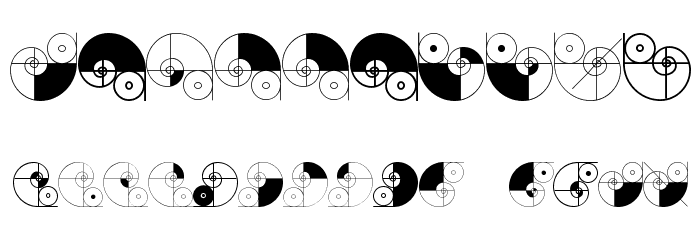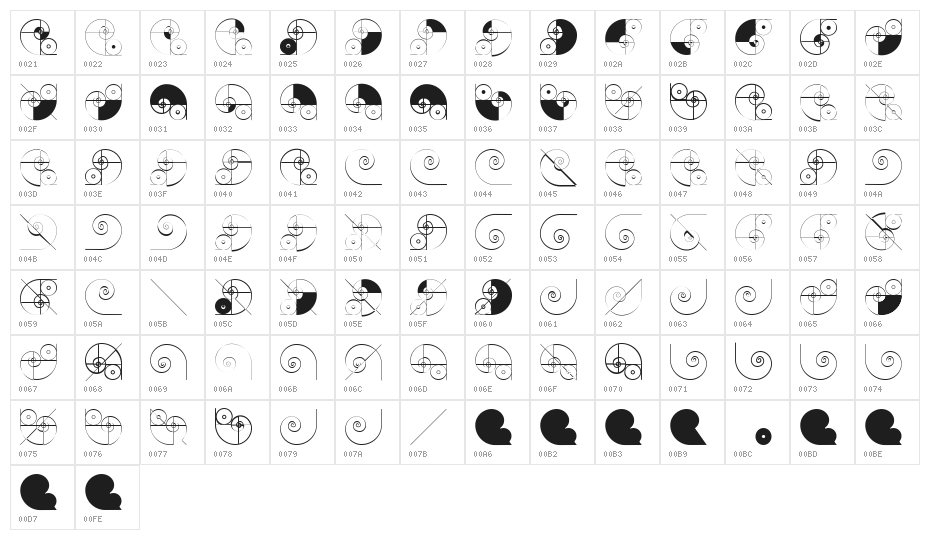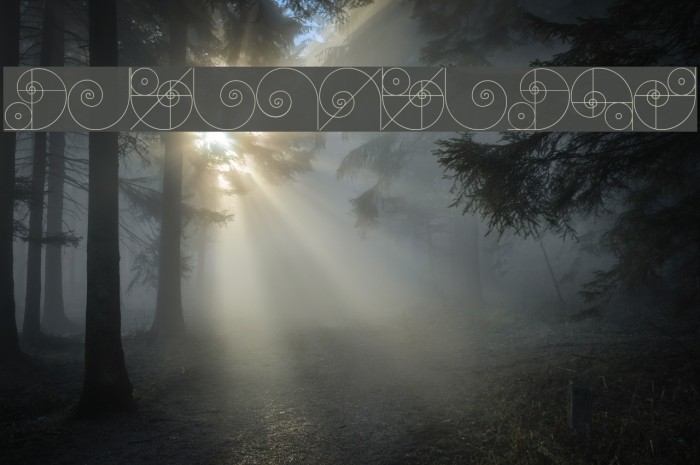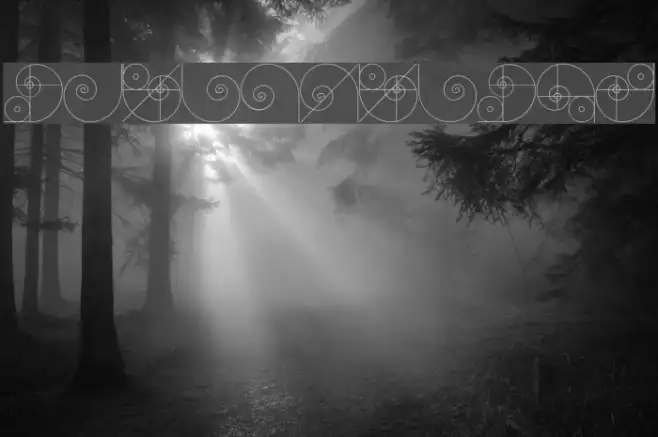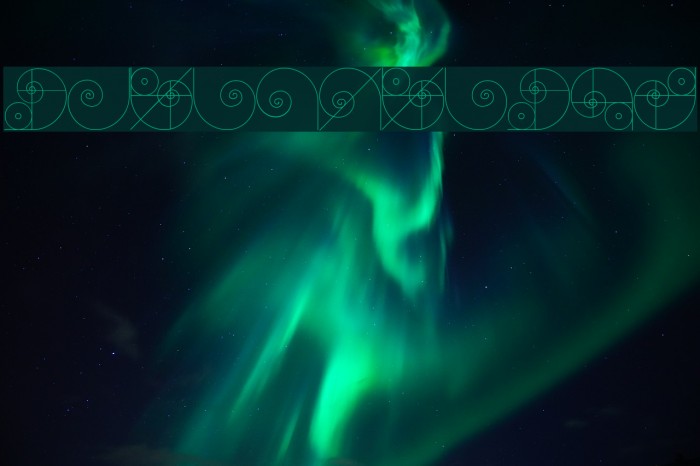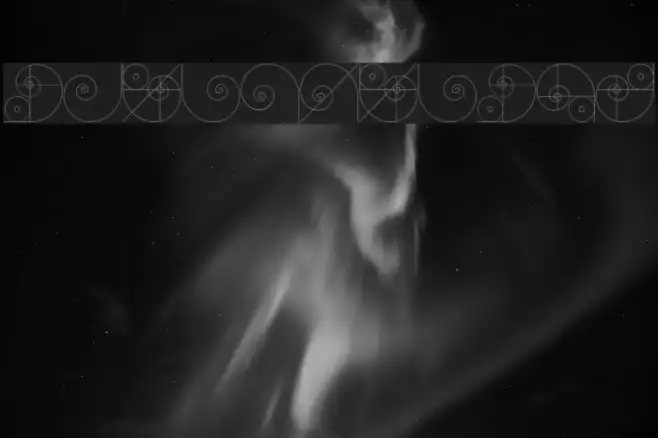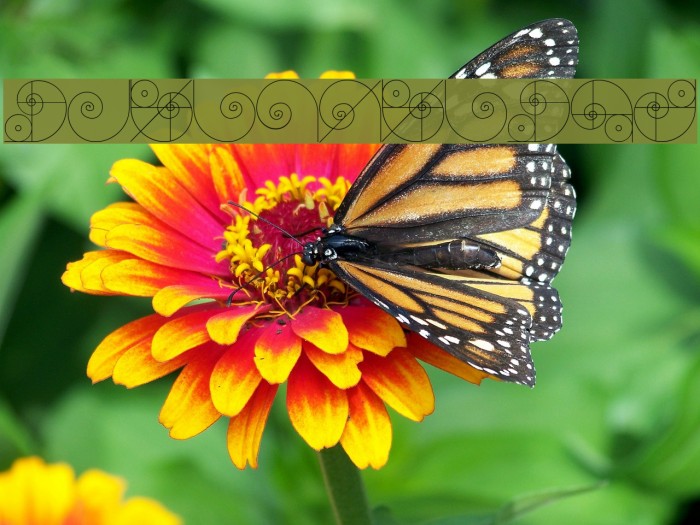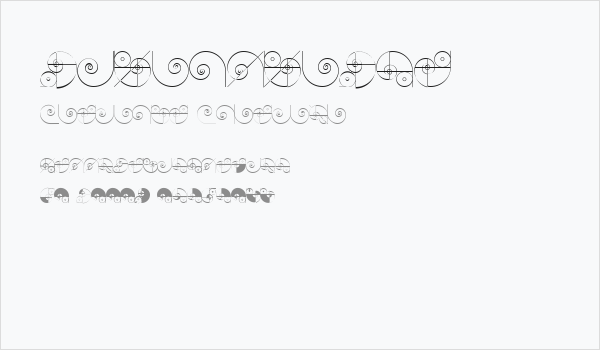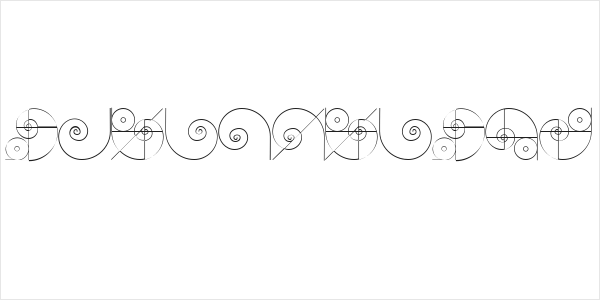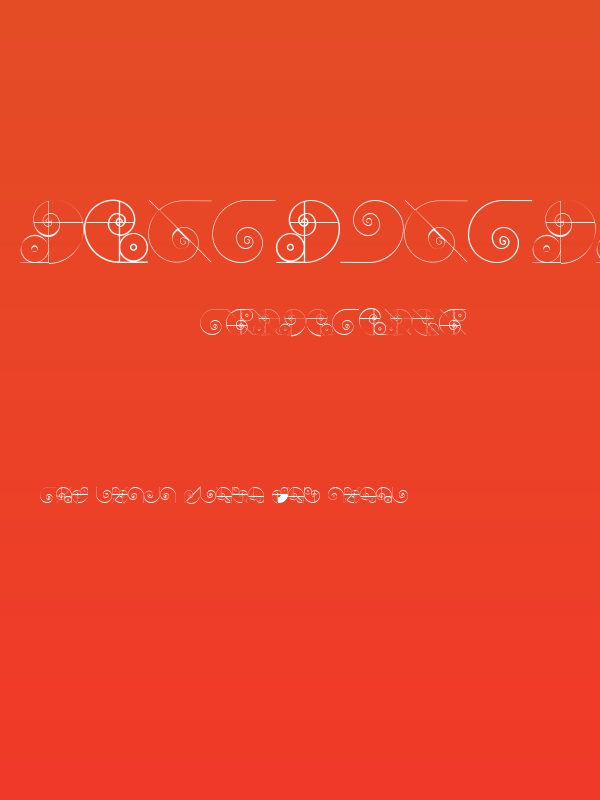
NautilusOne Font
NautilusOne Description
This font features a unique and intricate design inspired by the nautilus shell, characterized by its spiral and circular patterns. Each character is composed of delicate lines and curves that mimic the natural form of a nautilus, creating a sense of movement and fluidity. The design is highly decorative, with a focus on geometric precision and symmetry. The combination of thin and thick lines within the characters adds a dynamic contrast, enhancing the visual appeal. This font is not only a typographic element but also a piece of art, making it suitable for projects that require a distinctive and artistic touch.
| Use Case | Logos, Decorative headings, Artistic projects |
| Proposed Projects | Ideal for artistic projects, branding, logos, and decorative headings where a unique and eye-catching design is desired. |